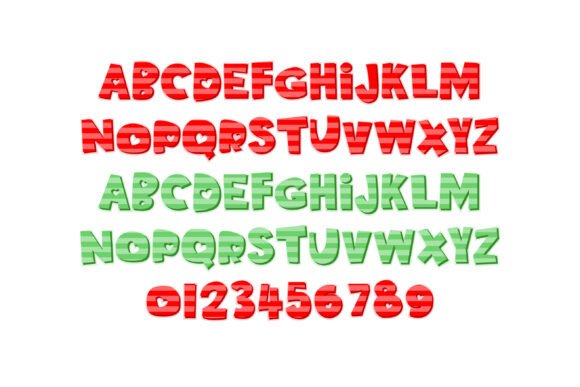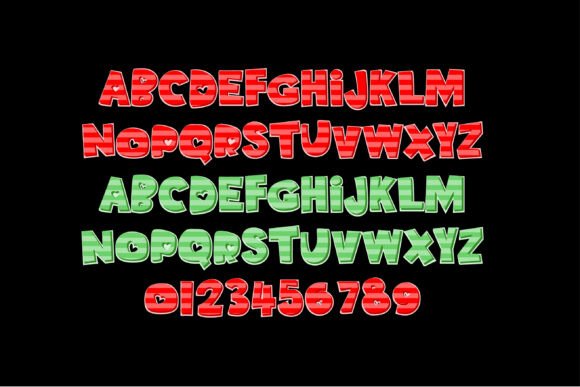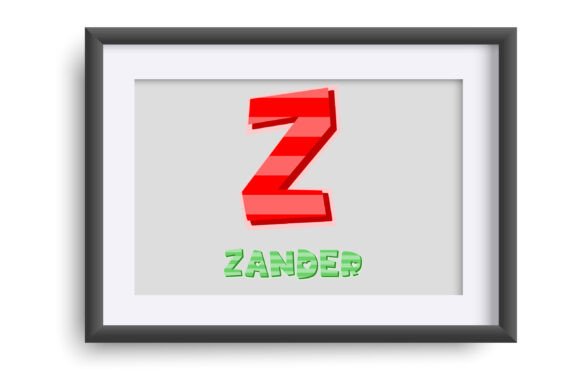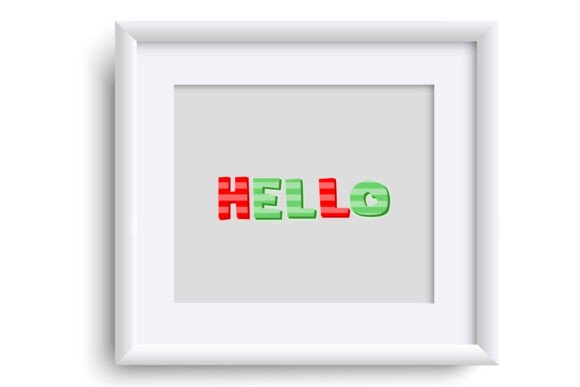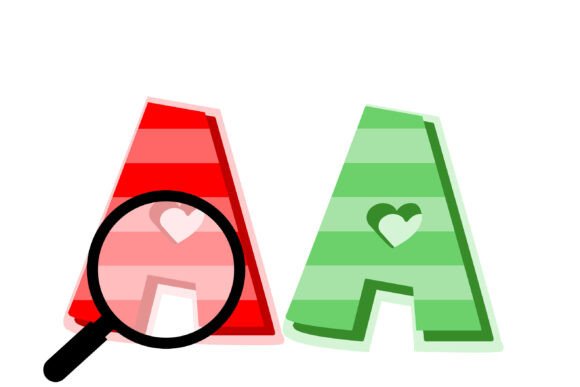
Introduction to Peppermin-mania Font
Remember that moment when you stumble upon the perfect design element and it instantly elevates your entire project? That’s exactly what the Peppermin-mania Font will do for your next creative endeavor. This high-quality, full-color font is a game-changer for designers seeking to add a touch of whimsy and personality to their designs.
With its soft sans serif design and peppermint stripes, the Peppermin-mania Font is the perfect design resource for titles, displays, posters, and more. Its transparent background allows for seamless integration with any background, making it a valuable asset for designers. Whether you’re working on a free download or a paid project, this font is sure to bring a smile to your clients’ faces.
Key Features of Peppermin-mania Font
- High-quality design resource perfect for creative projects, offering a unique and playful touch.
- Features a transparent background, allowing for seamless integration into designs and minimizing visual clutter.
- Unique characteristics include a whimsical, hand-drawn style and a wide range of expressive characters, making it ideal for creative and artistic projects.
- Designed to be versatile and adaptable, the Peppermin-mania Font can be used in a variety of design contexts, from digital media to print materials.
Honest Review: Peppermin-mania Font
I recently stumbled upon the Peppermin-mania Font and I must say it’s a great addition to any designer’s arsenal. With a high quality design, it’s perfect for any creative project that requires a unique touch.
- ✨ The font has a transparent background, making it easy to customize and pair with any design.
- ✨ The font is highly versatile and can be used for a wide range of design projects, from logos to brochures.
- ⚠️ The font may not be suitable for all types of designs, such as those requiring a more formal or traditional look.
- ⚠️ Some users may find the font’s unique style to be overwhelming or too playful for certain projects.
Overall, I’m impressed with the Peppermin-mania Font and I think it’s a great addition to any designer’s toolkit. It’s definitely worth checking out, especially for designers on a budget or looking for a unique touch for their next project.
Experiment with different font sizes and styles to create unique and eye-catching designs. Use the font’s transparent background to create a sense of depth and dimension. Combine the Peppermin-mania Font with other design elements, such as graphics and images, to create a cohesive and engaging visual identity.
The Peppermin-mania Font is perfect for a variety of creative projects, including graphic design, digital art, and even web design. Its unique characteristics and high-quality design make it an ideal choice for designers and artists looking to add a touch of creativity to their work.